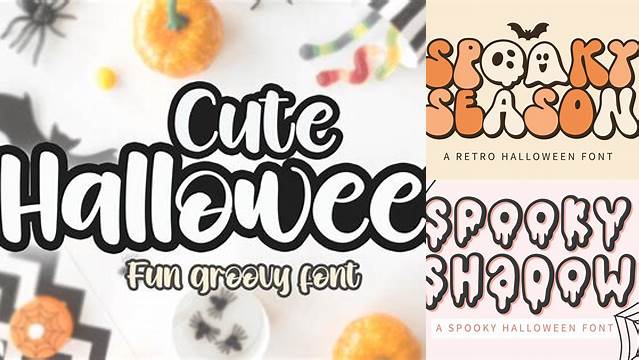
Cute Halloween School Fonts: Free Downloads!
Hey guys! Halloween is just around the corner, and if you're anything like me, you're already brainstorming costume ideas and planning your spooky celebrations. And what goes perfectly with Halloween? That's right, awesome fonts! If you're looking to create some fantastic Halloween-themed projects for school, look no further. I'm going to dive deep into the world of cute Halloween school fonts that are available for free download. We'll explore various styles, from playful and whimsical to slightly eerie and spooky, perfect for everything from classroom decorations and worksheets to posters and invitations. Get ready to transform your projects with these amazing fonts! Whether you're a teacher, a student, or just a Halloween enthusiast, you're in for a treat.
1. The Allure of Halloween School Fonts
When it comes to creating a truly immersive Halloween experience, the font you choose can make all the difference. Imagine crafting a haunted house invitation that uses a font that looks like dripping blood, or a classroom sign that utilizes a playful, pumpkin-themed font. It adds more spice and a better experience for the reader. The right font can evoke the perfect mood and enhance the overall aesthetic of your project. This is especially true in a school setting, where engaging visuals are crucial for capturing students' attention and making learning fun. The beauty of these fonts is their ability to blend seamlessly with the theme, making your projects stand out. This ensures that your Halloween projects are visually appealing and convey the spirit of the season. Halloween school fonts also provide a creative outlet, allowing you to experiment with different styles and find the perfect match for your vision. Ultimately, using these fonts is all about creating a memorable and enjoyable experience for everyone involved. Think about it: a well-designed worksheet with a spooky font is a lot more appealing than a generic one, right? Exactly! You want something that screams Halloween.
Beyond their aesthetic value, these fonts also offer a practical advantage. They can be used in a variety of school-related projects, from creating themed lesson plans and quizzes to designing bulletin boards and classroom decorations. Many of these fonts are designed to be easily readable, even at smaller sizes, making them perfect for any educational context. They are also incredibly versatile, and can be used on a wide range of devices, including computers, tablets, and even smartphones. This flexibility is a huge bonus, especially in today's increasingly digital classrooms. The use of Halloween school fonts is a simple way to add some flair and personality to your projects. They can bring a touch of excitement to your learning activities. This enhances the overall educational experience for students and teachers alike. These fonts are an essential tool for anyone looking to add a touch of Halloween magic to their school projects.
2. Playful Halloween Font Styles for School Projects
Let's talk about the super fun part: the fonts themselves! There's a whole universe of playful Halloween font styles out there, each with its own unique personality. If you're aiming for a friendly, approachable vibe, look for fonts that are rounded and bubbly, maybe with a slight spooky twist. Picture a font that looks like it's made of candy corn or playful ghosts. Some fonts even include fun little extras like bats or spiders integrated into the letterforms, adding an extra layer of Halloween charm. Guys, these fonts are perfect for younger kids' projects, as they're not too scary and are super engaging. You can create eye-catching posters, worksheets, or even decorate your classroom with a font that screams fun! They're all about adding a bit of whimsy to your creations.
Now, for those of you who want to step it up a notch, there are fonts that have a touch of spooky fun without going too far into the scary realm. These fonts might have a slight tilt or a bit of a jagged edge, giving them a slightly eerie feel, but still maintaining a friendly aesthetic. Imagine a font that looks like it's been hand-drawn by a friendly monster, or a typeface that uses a subtle spiderweb design to decorate the letters. You'll find that these fonts are amazing for older kids or projects where you want a slightly more mature approach. They're still fun and playful, but with a hint of mystery. You can use these fonts for invitations, announcements, or even school newsletters to create a unique experience. It is amazing how different the impression will be!
Playful Halloween font styles are an excellent way to capture the essence of the holiday in your school projects while ensuring they remain engaging and accessible to all students. They offer a perfect balance of creativity and usability, allowing you to create visually appealing and effective educational materials. So get out there and start exploring the world of playful Halloween fonts! You'll be amazed at the endless possibilities and how much fun you can have creating your own spooky designs. It's time to get creative!
2.1. Whimsical Pumpkin-Themed Fonts
Pumpkin-themed fonts are like the ultimate embodiment of Halloween fun, and they are perfect for school projects. These fonts often feature letters that resemble plump, smiling pumpkins or incorporate pumpkin-related elements like vines, leaves, and swirls. Imagine a font where the 'O's' are replaced with adorable pumpkin faces. Or maybe you'll like a font with a vine twisting through the letters. These fonts are all about creating a warm, inviting feel, and they're especially great for younger kids. You can use them on classroom signs, Halloween-themed activity sheets, or even create personalized name tags for your students. These fonts add a touch of playful creativity and make your projects stand out. They're super cute and are a guaranteed hit with any audience.
But that's not all! Pumpkin-themed fonts can also be used in more subtle ways. You might find a font with a slightly rounded edge, inspired by the shape of a pumpkin, or a typeface that uses orange and green accents to mimic the colors of the season. They're all about creating a cohesive theme and adding a touch of Halloween charm to your work. Moreover, you can use these fonts on digital and printed materials, creating a cohesive look for all of your projects. So, whether you want to go all out with a font that's bursting with pumpkin goodness or prefer a more understated approach, you'll find tons of options. They'll help you create projects that capture the spirit of Halloween. It's time to get ready for a fun and creatively inspired season!
2.2. Friendly Ghost and Monster Fonts
Let's talk about the spooky, yet friendly, side of Halloween. Friendly ghost and monster fonts are perfect for creating a fun, welcoming atmosphere. These fonts often feature rounded letters, playful designs, and charming character illustrations. Imagine a font with letters that look like they're dancing like little ghosts, or a typeface where each letter is a cute, friendly monster. These fonts are all about embracing the fun side of Halloween. They are the ideal choice for younger kids' projects. You can use them to create posters, worksheets, or even Halloween-themed decorations for the classroom. These fonts are all about creating a positive and inclusive environment that celebrates the holiday.
Friendly ghost and monster fonts are also a great way to introduce younger students to the theme of Halloween without being too scary or intimidating. These fonts will show kids that Halloween is all about fun and excitement. This is something that you want! They can be integrated in various ways. You can use them to create Halloween-themed learning games, activity sheets, or even decorate your classroom with cute ghost and monster characters. These fonts are also a great way to personalize your projects. This allows you to create a unique look that reflects your style and creativity. These fonts are a great choice for any Halloween project.
2.3. Candy Corn and Sweet Treat Fonts
If you're a fan of Halloween treats, this is the section for you! Candy corn and sweet treat fonts are all about capturing the delicious essence of the holiday. These fonts often feature letters that resemble candy corn, lollipops, or other yummy treats. This will bring smiles to the faces of kids of all ages. Imagine a font where the letters are made of candy corn, each one with its own unique stripe pattern. Or maybe you'll like a typeface with letters that resemble chocolate bars or lollipops. These fonts are all about celebrating the sweet side of Halloween. You can create posters, flyers, or even decorate your classroom with sweet treat fonts. They're all about creating a visually appealing experience for the reader.
Candy corn and sweet treat fonts are a fun way to incorporate the flavors and themes of Halloween into your school projects. They're perfect for creating invitations, announcements, or even Halloween-themed activity sheets. You can also use them to create a festive atmosphere in your classroom by using them for decorations, creating a cohesive and delightful theme. This will make your classroom a truly immersive experience! So, if you want to add a touch of sweetness to your Halloween creations, these fonts are the perfect choice. You'll definitely want to check these fonts out.
3. Spooky and Eerie Halloween Font Styles for School Projects
For those seeking a touch of the macabre, there are many fonts that do the trick. If you're looking for something that is a bit more on the spooky side, look at fonts that have a slightly more intense aesthetic. These fonts often feature sharp edges, dripping effects, or mysterious designs. Imagine a font that looks like it's made of dripping blood, or a typeface that has a mysterious cobweb design. These fonts are all about creating a sense of dread and excitement. This is a bit more advanced in terms of themes, so they're great for older kids and students. You can create Halloween-themed invitations, posters, or even design classroom decorations with a truly spooky atmosphere. These fonts will set the tone for Halloween fun.
Furthermore, for an intense aesthetic, you can also use fonts that incorporate Halloween symbols like skulls, bats, or spiders. A font that has these elements will create a spooky vibe. They are a good addition. These will bring excitement and mystery. Spooky and eerie Halloween font styles provide a great way to enhance the projects and add the right feel. With a bit of creativity, you can use these fonts to create a truly memorable experience. This will add excitement and intrigue! They are great for creating a memorable experience. You should try them out!
3.1. Haunted House and Gothic Fonts
If you want to create a Halloween atmosphere, then Haunted House and Gothic fonts are just for you! These fonts often feature elaborate designs and sharp edges that add a touch of mystery. Imagine a font with an old, weathered appearance. This is great for an eerie and mysterious look. Gothic fonts, inspired by the style of ancient cathedrals, are another great option. They feature elaborate serifs and calligraphic elements that add sophistication and elegance. They're perfect for creating invitations, posters, or other Halloween-themed materials. You can also use them to add a sense of history or the atmosphere of an old haunted house. Haunted House and Gothic fonts offer endless possibilities for your Halloween designs.
You can use these fonts in a variety of ways. Consider designing a spooky banner for your classroom or creating a flyer for your Halloween event. The fonts can also be integrated into creative projects, such as creating a spooky story. This will add a touch of mystery and intrigue to your designs. So if you're looking to create an atmosphere, these fonts are for you.
3.2. Dripping Blood and Splatter Fonts
If you want to add an element of gore, this is what you are looking for. Dripping blood and splatter fonts are a sure way to add the Halloween feel! These fonts often have dripping effects, splatters, or textured designs that create a sense of realism. Imagine a font that looks like it's made of blood or slime. These fonts are best for Halloween themes. They are perfect for creating invitations, posters, or Halloween-themed activities that create a chilling effect. Use these fonts carefully and creatively to create exciting projects!
Additionally, dripping blood and splatter fonts are a great way to create a memorable Halloween design. You can use these fonts to create a unique and exciting experience. It is important to know the audience. If the font is meant for older kids, then this is the perfect option. These fonts will surely make your projects stand out, making them unforgettable. The font should be used for appropriate ages. This will have a great impact on the reader.
3.3. Creepy Crawly Spiderweb Fonts
Bring in the creepy crawlies with spiderweb fonts! These fonts feature designs that incorporate spiderwebs, spiders, or other creepy crawly elements. Imagine a font with a spiderweb design, where each letter has a spiderweb texture. These fonts are perfect for creating invitations, posters, or Halloween-themed events. They are great for a unique and creative experience. Creepy crawly spiderweb fonts are an excellent way to capture the essence of Halloween. This allows you to create projects that have a hauntingly beautiful vibe. It will capture everyone's attention. Use your creativity to create something unique. You'll find that these fonts are an essential tool for creating the perfect Halloween project.
You can create posters, flyers, or anything! You can also incorporate these fonts into Halloween-themed activities. Try creating a spooky quiz, or decorating your classroom. This will help create the Halloween spirit! So, if you want to add a touch of creepiness to your Halloween creations, these fonts are the perfect choice. You'll be amazed at how much fun you can have! Try them out.
4. Where to Find Free Halloween School Fonts
Now, let's talk about where to actually get your hands on these amazing fonts! There are tons of websites out there that offer free font downloads, and the best part is, you can download all these fonts completely for free. Just make sure to read the license information to understand how you can use the font. I've got some recommendations for you. I know you will have a lot of options.
These sites typically have a wide selection of fonts, including a dedicated section for Halloween-themed fonts. They usually have a search function to narrow down your options. These websites offer an easy and accessible way to start your search. This also helps you find the perfect fonts. They also provide detailed information about each font, including its style and usage rights. Free Halloween school fonts are easily found online. Make sure you know what you are looking for, and start your search.
4.1. Popular Font Download Websites
Here are some of the most popular websites for finding free Halloween school fonts, so you can start browsing and downloading. Websites like DaFont and FontSpace are great places to start your search. They are usually well organized, and you can easily browse their collection of Halloween-themed fonts. You can also explore creative market websites such as Creative Fabrica, which often offer free fonts as part of their promotional campaigns. These platforms are designed to connect designers with users. They also offer a vast collection of fonts. You can also get different design assets to create great projects.
Don't forget to check out Google Fonts! They are a great and reliable source. Google Fonts offers a wide range of free fonts. They are not specifically Halloween-themed, but you can find amazing fonts for your projects. You can always use them! So, when you are choosing, make sure you know what you're looking for. Popular font download websites are a convenient way to get free fonts! They are all user-friendly and provide great options for any Halloween project.
4.2. Understanding Font Licenses: Free vs. Commercial Use
It's super important to understand font licenses before you download and use any font. Not all free fonts are created equal! Some are free for personal use only, meaning you can only use them for your own non-commercial projects, like making Halloween decorations for your home or classroom. Others offer a commercial license, which means you can use the font for projects that might generate money, like selling Halloween-themed items. You want to make sure you use the font correctly. The license will specify what you can and can't do. Always check the license to ensure you are using it correctly!
Understanding font licenses can save you from potential legal issues down the road. You can usually find the license information on the website where you download the font, or in the font's documentation files. Always read the license carefully before using a font, and make sure that it aligns with your intended use. If you're unsure, it's always best to err on the side of caution. Reach out to the font designer or the website for clarity. It is important to know the rules. This will make your projects run smoothly.